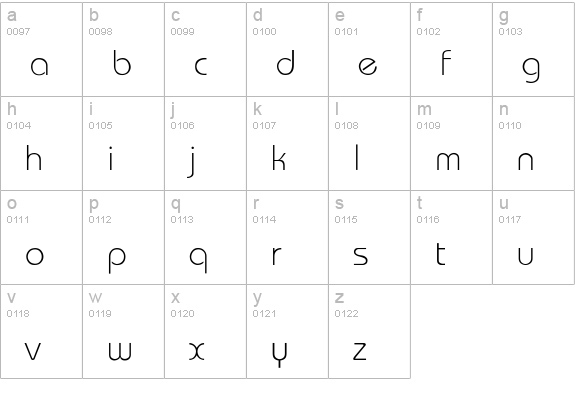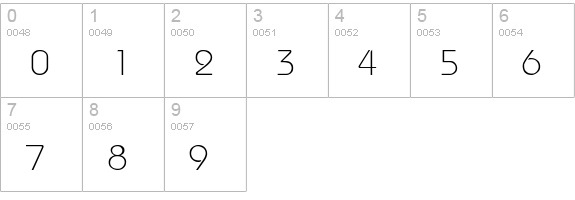
Bauhaus Light Font Details
Bauhaus Light is a refined, elegant variant in the Bauhaus typeface family \xE2\x80\x94 well suited to elegant body text, refined sub-headings, and luxury branding.
The Bauhaus Light font is a modern and elegant typeface that exudes sophistication and simplicity. Its clean lines and minimalistic design make it a versatile choice for a wide range of design projects, from branding to editorial design. The Bauhaus Light font embodies the principles of the Bauhaus movement, with its focus on form and function. One of the best things about the Bauhaus Light font is that it is available for free download at FontsMarket.com. This means that you can easily access this high-quality typeface without any cost, making it a great option for designers on a budget or those looking to experiment with new fonts. Whether you're working on a professional project or a personal creative endeavor, the Bauhaus Light font is sure to make a strong visual impact.